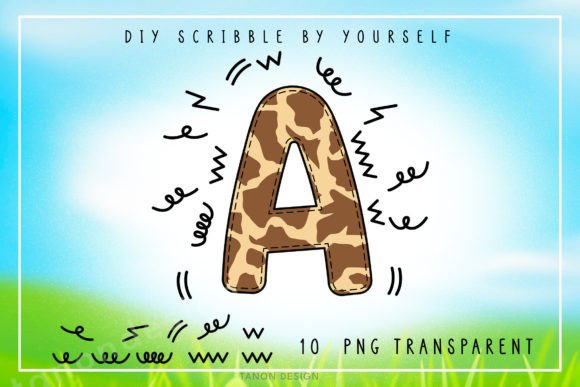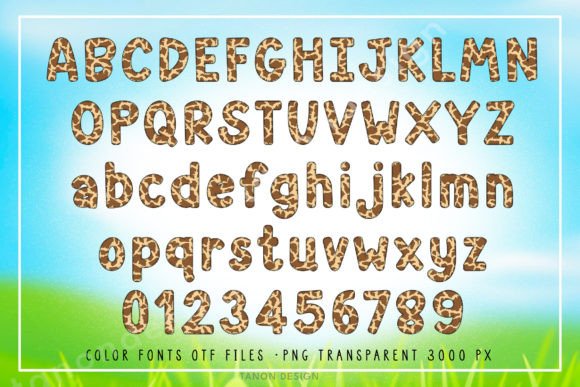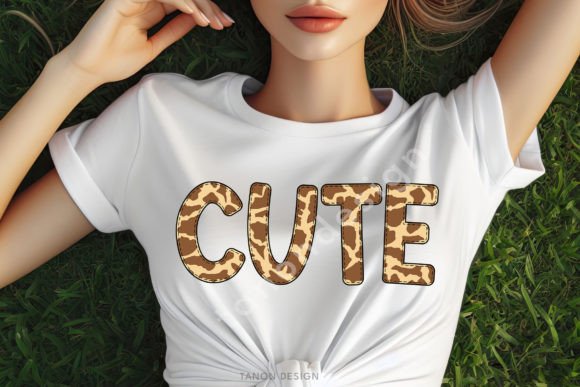
Cute Animal Font: A Delightful Addition to Your Design Projects
Are you a designer, crafter, or DIY enthusiast looking for a fun and playful font to add to your projects? Look no further than the Cute Animal Font! This adorable font is perfect for creating eye-catching designs for t-shirts, mugs, digital art, crafts, cards, and more. In this article, we’ll explore the features and benefits of the Cute Animal Font and provide you with a comprehensive guide on how to use it.
This comprehensive package provides you with everything you need to create stunning designs. The OTF color font file can be used in various design programs, while the PNG transparent files offer flexibility and ease of use. The scribble elements add a creative touch to your projects, allowing you to experiment with different styles and designs.
Compatibility and Uses
The Cute Animal Font is versatile and can be used in a wide range of projects, including:
- T-shirt designs
- Mug designs
- Digital designs
- Crafts
- Cards
- Any other design projects!
Why Choose the Cute Animal Font?
So, why should you choose the Cute Animal Font for your design projects? Here are just a few reasons:
- Unique and playful style: The Cute Animal Font adds a touch of whimsy and fun to your designs, making them stand out from the crowd.
- Versatility: The Cute Animal Font can be used in a wide range of projects, from digital designs to crafts and cards.
Tips and Tricks for Using the Cute Animal Font
To get the most out of the Cute Animal Font, here are some tips and tricks to keep in mind:
- Experiment with colors: The color version of the font offers a range of possibilities for colorful designs. Try experimenting with different color combinations to find the perfect look for your project.
- Mix and match: Combine the Cute Animal Font with other fonts or design elements to create a unique and eye-catching design.
The Cute Animal Font is a delightful addition to any design project. With its playful style, high-quality files, and ease of use, it’s perfect for designers, crafters, and DIY enthusiasts alike. Whether you’re creating t-shirt designs, digital art, or crafts, this font is sure to bring a smile to your face and a touch of whimsy to your designs. So why wait? Get your Cute Animal Font today and start creating!